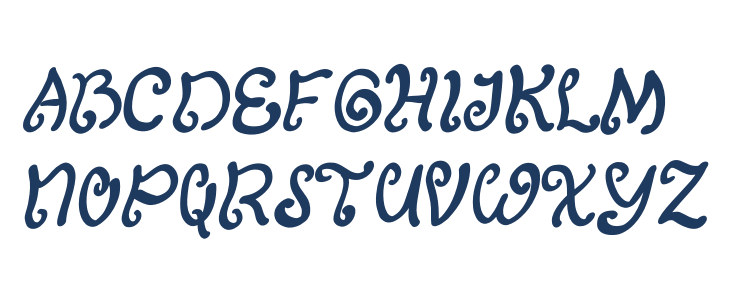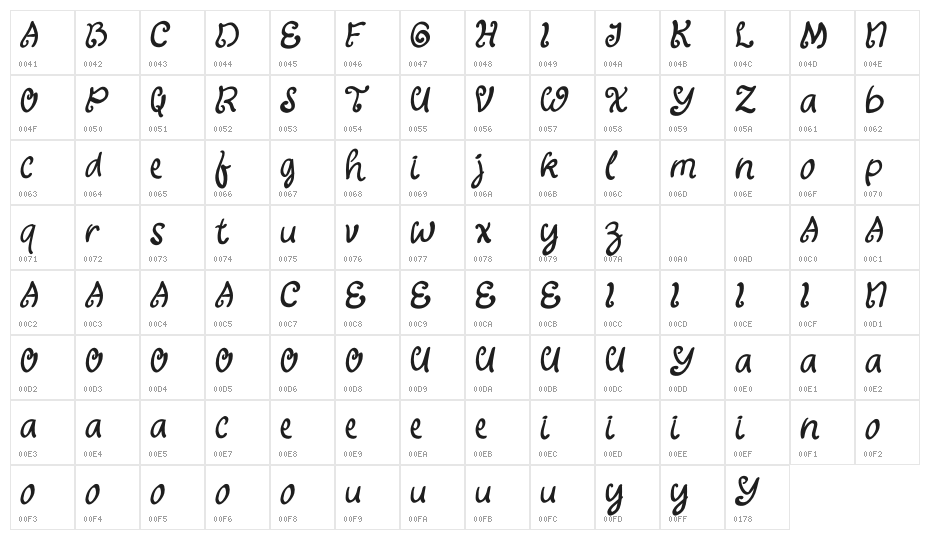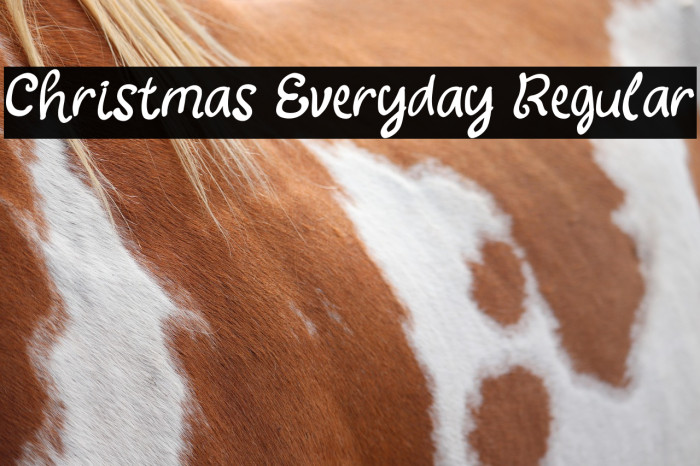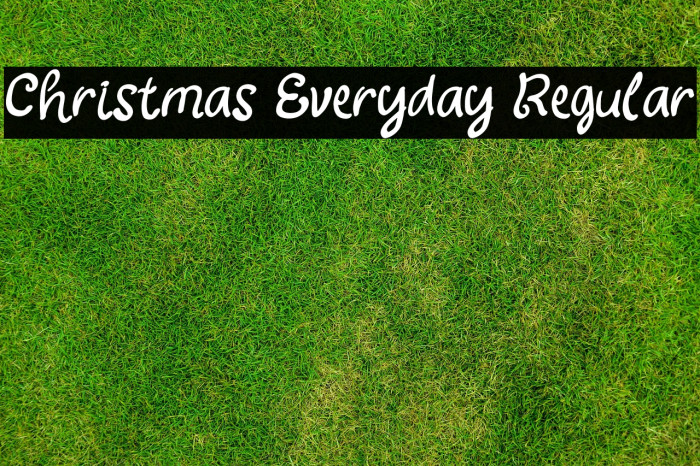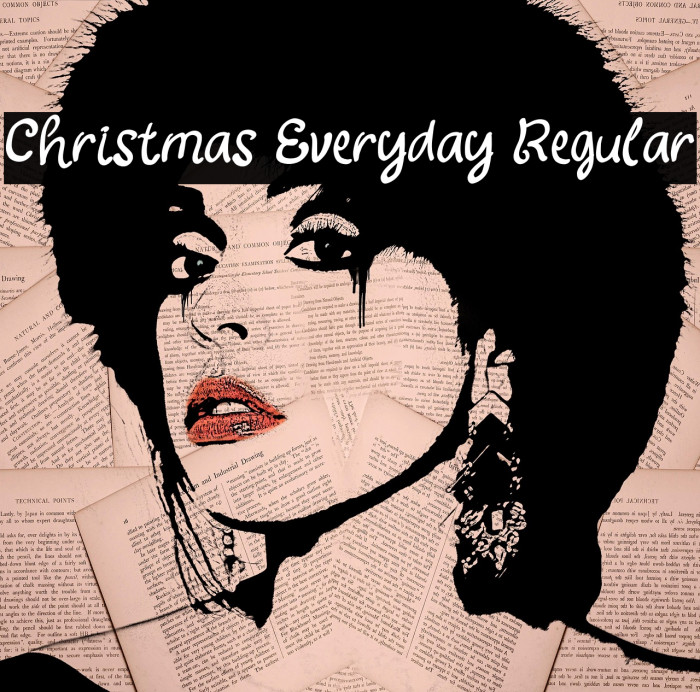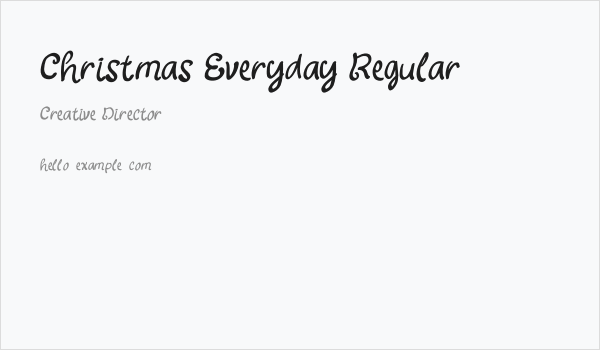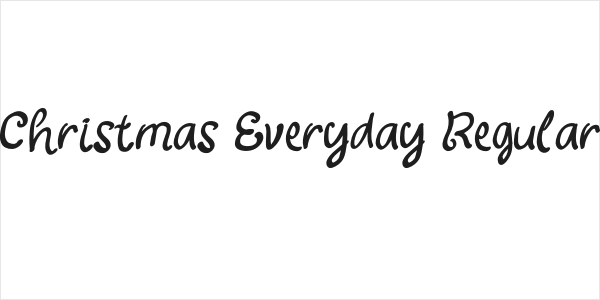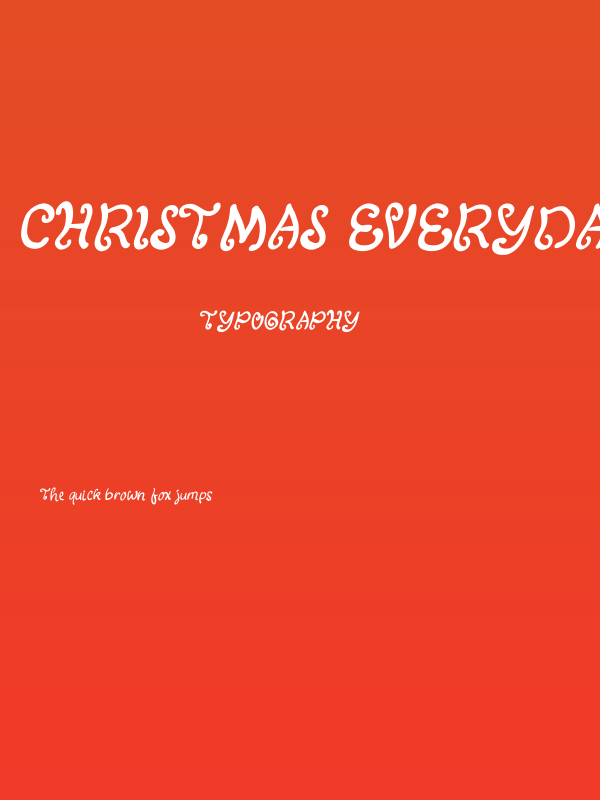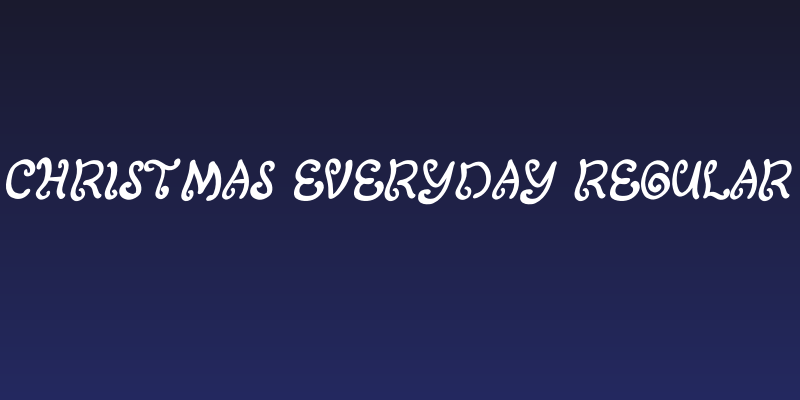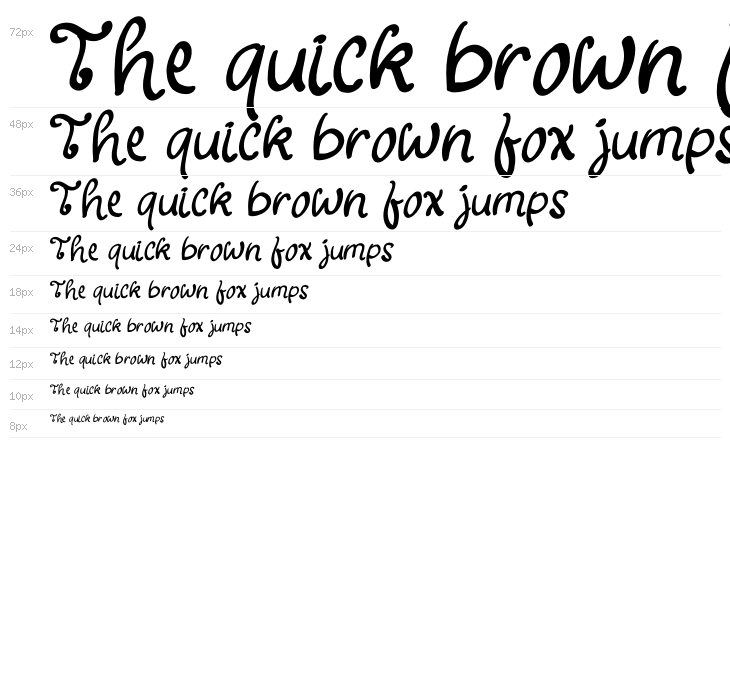
Christmas Everyday Regular Font
Christmas Everyday Regular Description
A whimsical, decorative script with playful swirls and curls, featuring moderate stroke contrast and a hand-drawn appearance. The letterforms are fluid and organic, with unique embellishments on terminals and bowls.
| Overall Style | Decorative, Whimsical, Festive |
| Use Case | Headlines, Logos, Greeting cards, Posters |
| Proposed Projects | Holiday cards, festive invitations, event posters, childrenΓ’β¬β’s book covers, seasonal branding. |